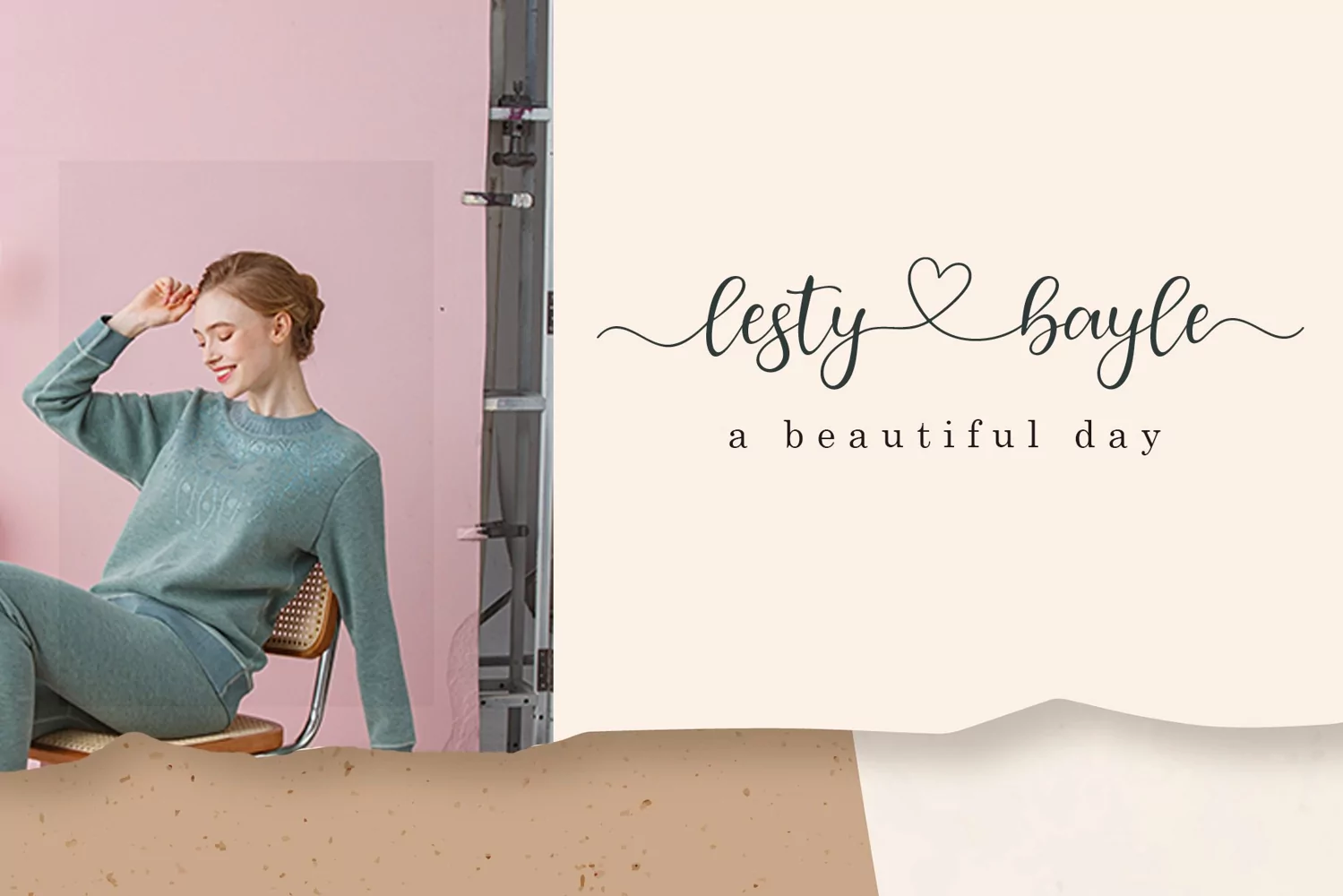
Adira smile is a handmade calligraphic font made with a touch of love in each character with a heart that can be connected to make this font more graceful. This font is perfect for logos, branding, business cards, watermarks, posters and more.
Adira smile comes with a full set of uppercase letters, lowercase numbers and punctuation marks, and multilingual support.